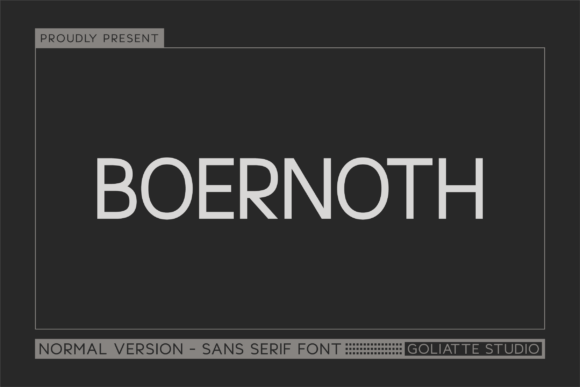
Introducing Boernoth – A Modern Sans Serif Typeface
As a designer, I’ve had my fair share of frustrating moments when searching for the perfect font. I recall working on a project for a high-end fashion brand, struggling to find a typeface that exuded both luxury and modernity. The client wanted a font that would make a statement, but still convey a sense of sophistication. After hours of scouring font libraries, I stumbled upon Boernoth – a bold, all-caps sans serif font that instantly caught my attention. With its clean lines and minimalist aesthetic, Boernoth was the perfect solution for my project. In this article, I’ll share my experience with Boernoth, its features, and how to make the most of this versatile typeface.
What Makes Boernoth Special?
Boernoth is designed for the modern designer, with a focus on strength, authority, and impact. Its strong, geometric structure makes it perfect for a wide range of projects, from digital interfaces to high-end branding. The all-caps design emphasizes clarity and readability, making it ideal for headlines, posters, and anywhere you need your message to stand out.
Key Features of Boernoth:
- All-caps design for maximum impact ✨
- Modern, minimalist style with a focus on readability ✅
- Bold, clean lines for a confident and professional look 💼
- Ideal for branding, logos, packaging, and digital design 📈
- Perfect for both large-scale headlines and smaller text blocks 📄
Honest Review: The Good and the Quirks
- Boernoth’s bold lines and geometric structure make it perfect for creating striking headlines and titles ✨
- The font’s versatility allows it to be used across various platforms, from digital to print 📈
- Its all-caps design ensures clarity and readability, even at smaller font sizes ✅
- As an all-caps font, Boernoth may not be the best choice for body text or longer paragraphs 📄
- Some users may find the font’s boldness overwhelming for certain design applications ⚠️
The Story Behind Boernoth
Boernoth was designed with the modern designer in mind. Its creator, a renowned type designer, aimed to craft a font that would exude strength, authority, and impact. Inspired by the geometric shapes and clean lines of modern architecture, Boernoth was born. The font’s all-caps design and bold lines make it perfect for creating striking headlines and titles.
Q: What is Boernoth’s primary use case?
A: Boernoth is ideal for projects that require a sense of professionalism and impact, such as branding, logos, packaging, and digital design.
Q: Can I use Boernoth for body text?
A: While Boernoth is perfect for headlines and titles, its all-caps design may not be the best choice for body text or longer paragraphs.
Q: Is Boernoth suitable for digital interfaces?
A: Yes, Boernoth’s strong, geometric structure and clean lines make it perfect for digital interfaces, such as websites and mobile apps.
Q: Can I use Boernoth for print materials?
A: Absolutely! Boernoth’s bold lines and geometric structure make it perfect for print materials, such as posters, flyers, and brochures.